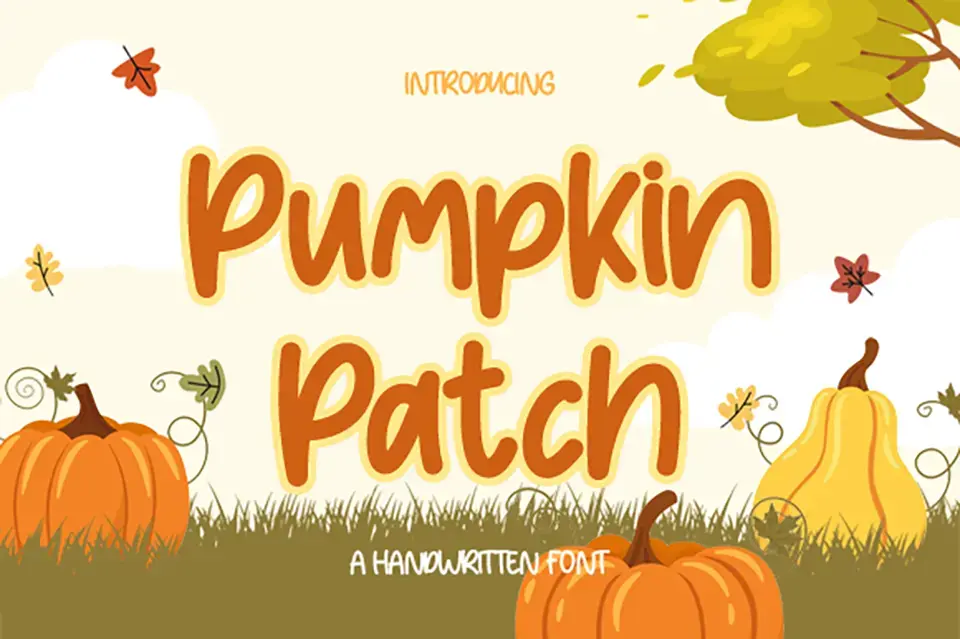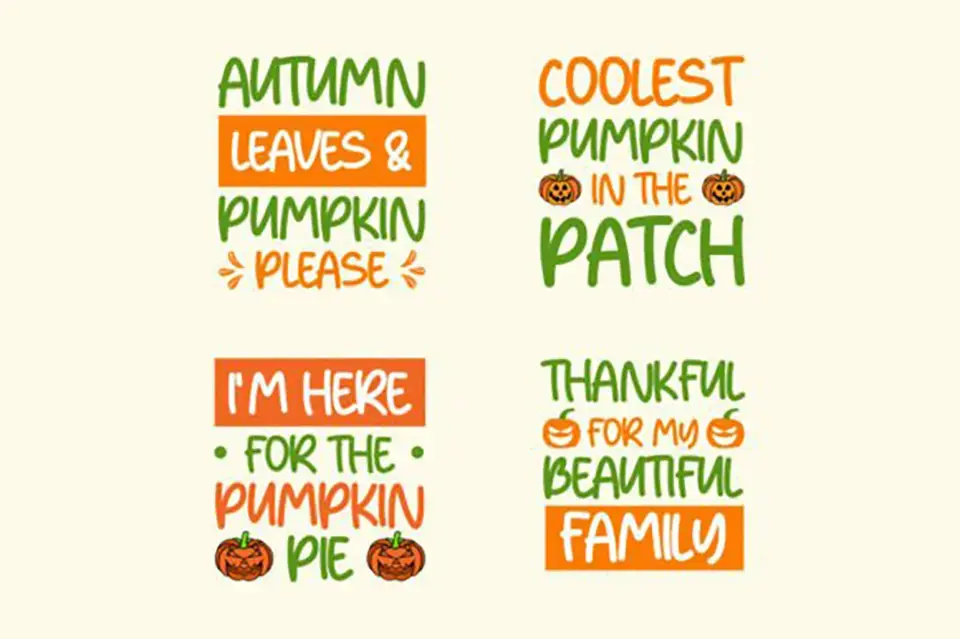
Pumpkin Patch Font
Pumpkin Patch is a charming handwritten script font that brings festive energy to creative projects. With its rounded, playful letterforms and organic strokes, this typeface captures the warmth and whimsy perfect for Halloween designs, autumn posters, seasonal packaging, and holiday invitations. The soft, casual style makes it ideal for greeting cards, labels, children’s book designs, and decorative titles that need personality and charm.